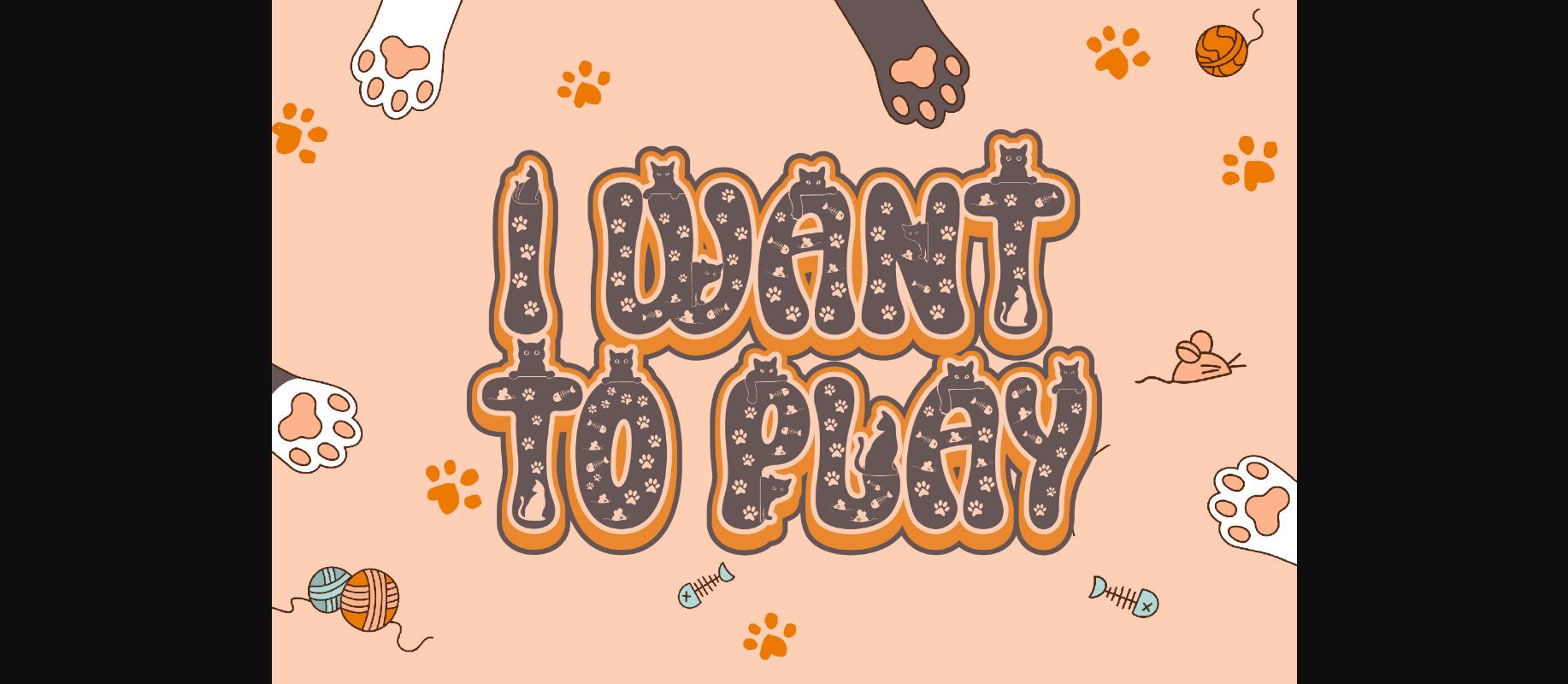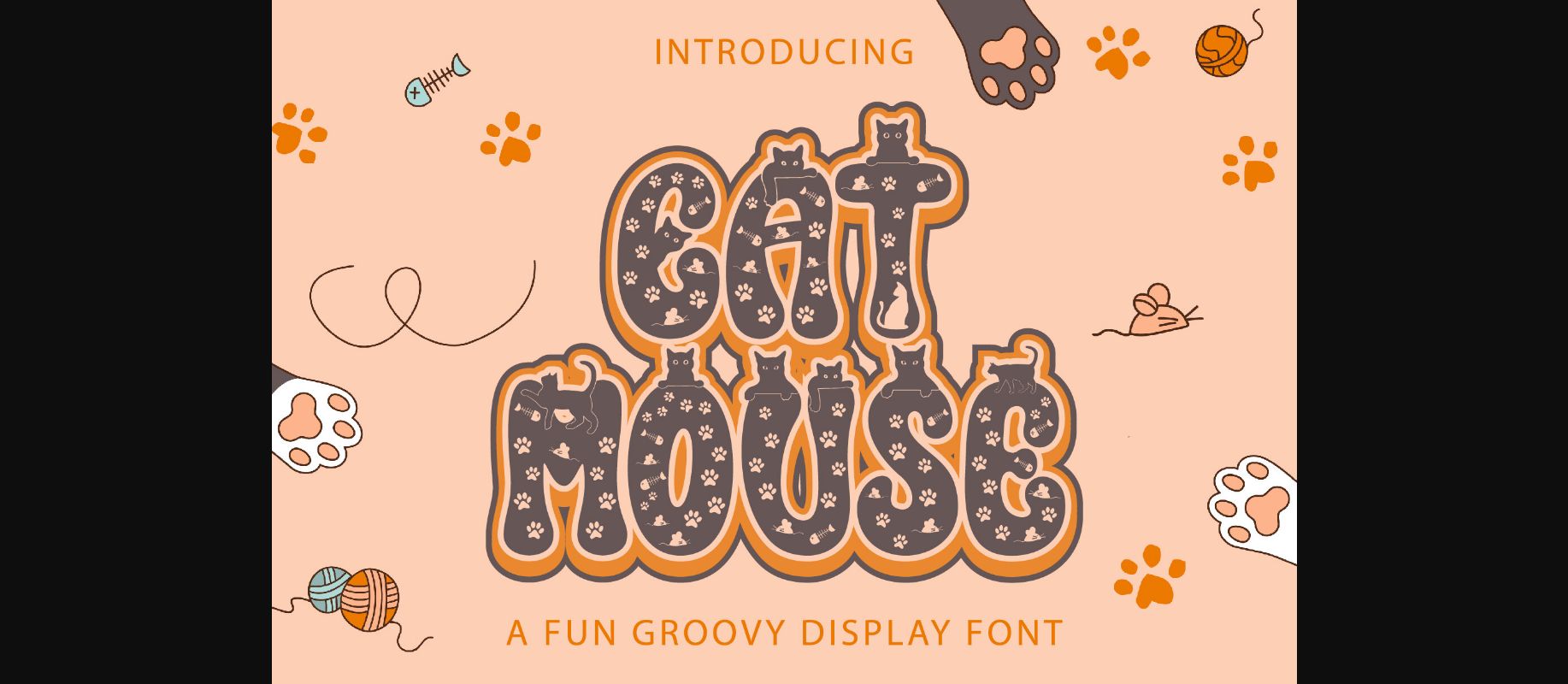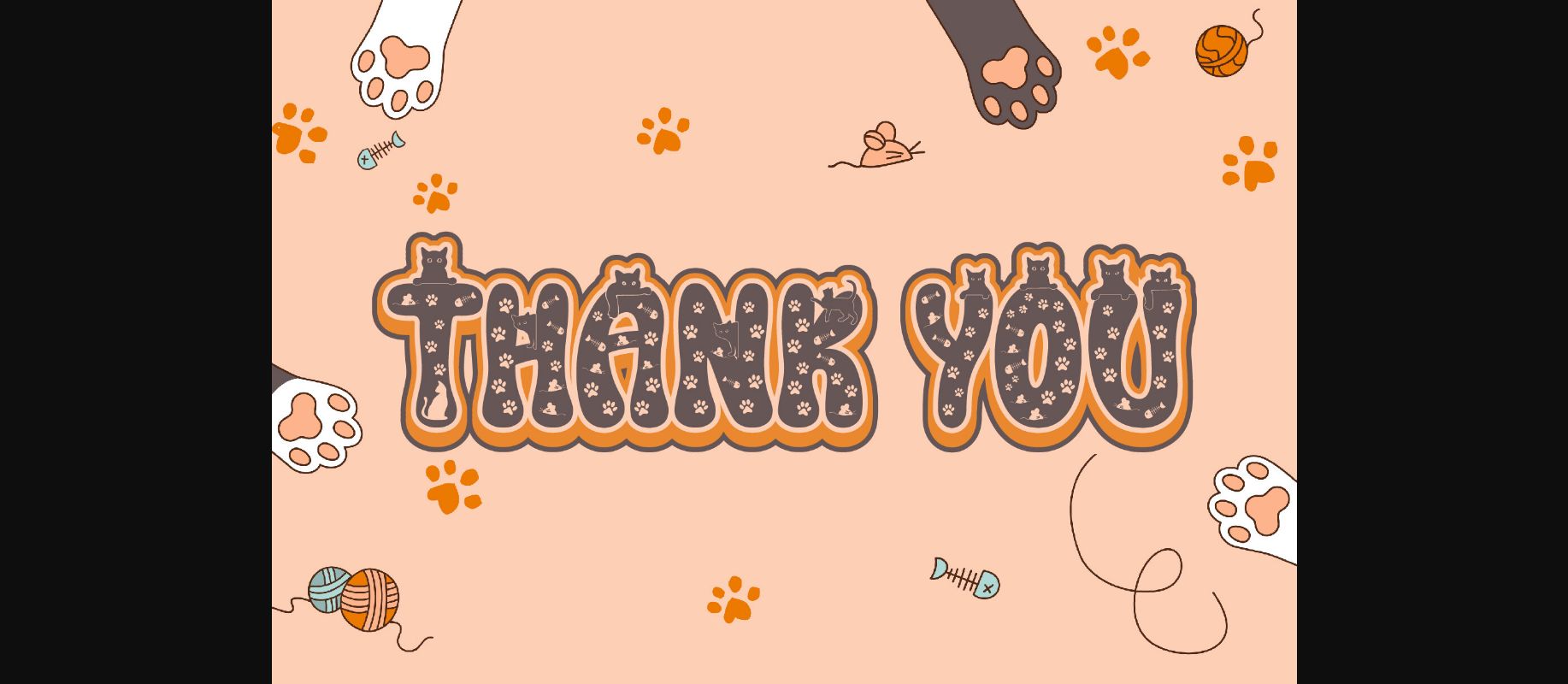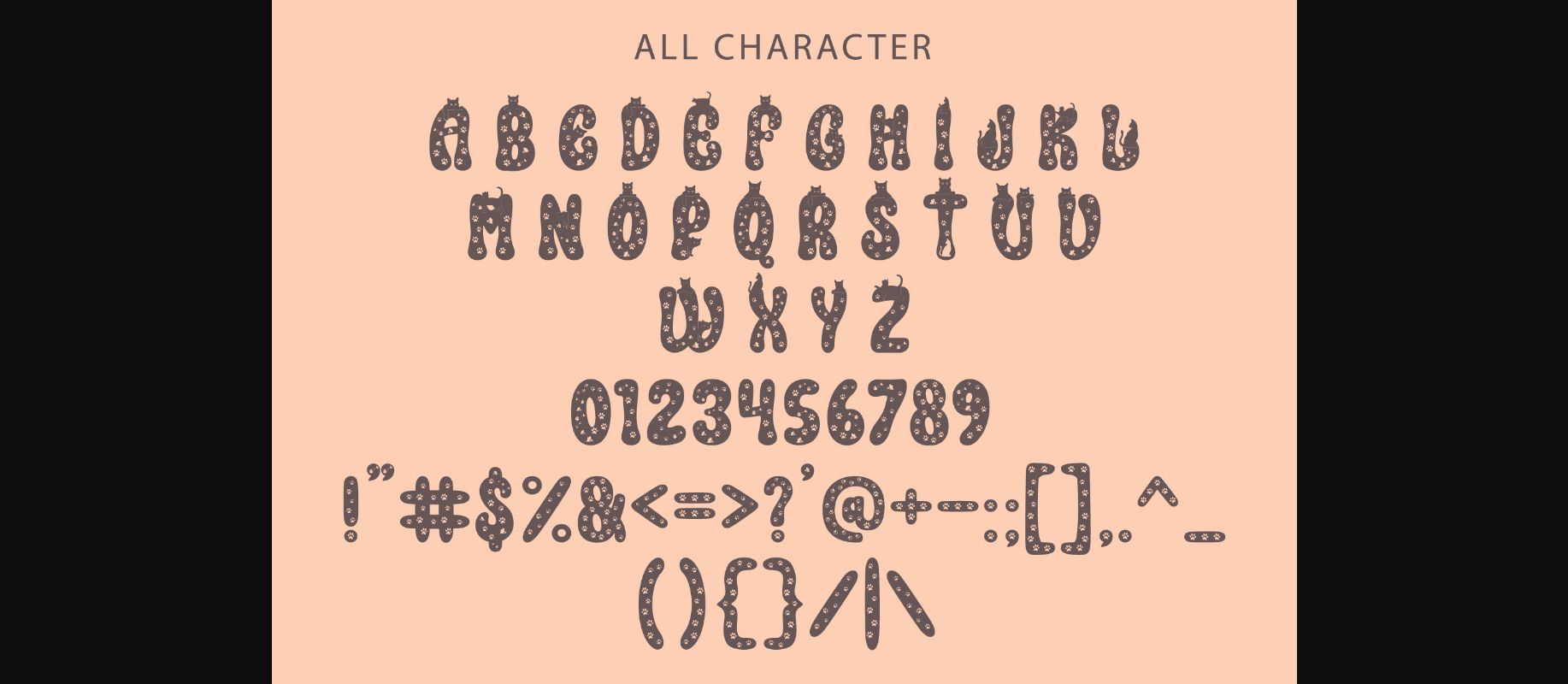
Cat Mouse Font
About Cat Mouse Font
Cat Mouse is a versatile, stylish, groovy, and playful retro display font, perfect for a wide spectrum of applications such as greeting cards, headlines, and more! Add it to any of your creative projects, and it will give them a romantic and exquisite fee.